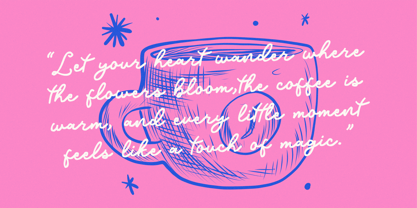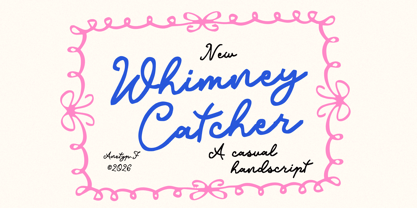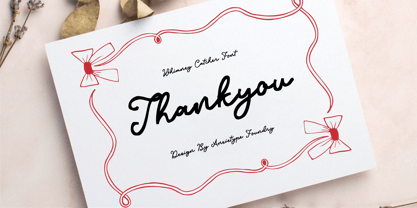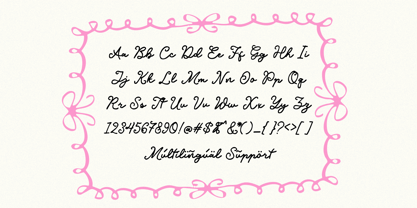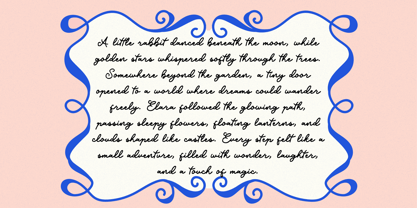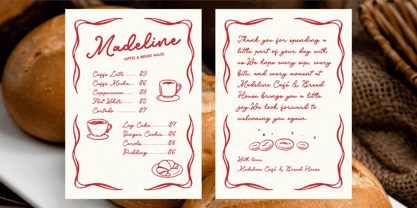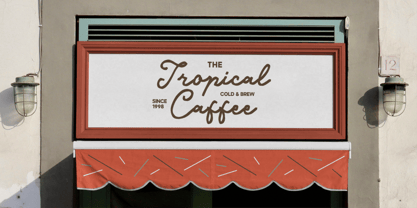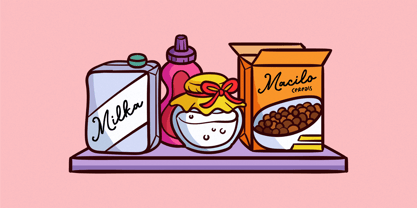
Whimney Catcher
The Whimney Catcher Font Family was designed by Annas Rifky Anhar and published by Anxietype Foundry. Whimney Catcher contains 1 styles. More about this family
Whimney Catcher – Whimsical Handwritten Script Font by Anxietype Foundry. Discover Whimney Catcher, a delightful handwritten script font that embodies a playful, expressive, and handcrafted essence. With its flowing letterforms and organic strokes, this font brings a unique handwritten personality to your designs, making it ideal for projects that require a warm and memorable visual identity. Whimney Catcher is perfect for a variety of applications, including logo design, branding, café and restaurant menus, food packaging, product labels, invitations, greeting cards, quotes, social media graphics, posters, stationery, apparel, and much more. Whether you're crafting a charming café identity, a playful food brand, a handmade product label, or a distinctive personal logo, Whimney Catcher infuses an authentic handwritten touch while ensuring your design remains stylish and eye-catching.